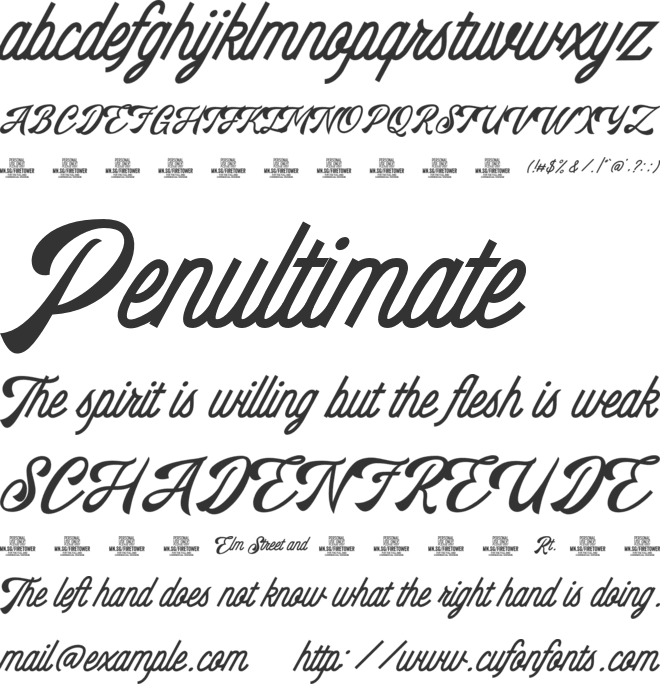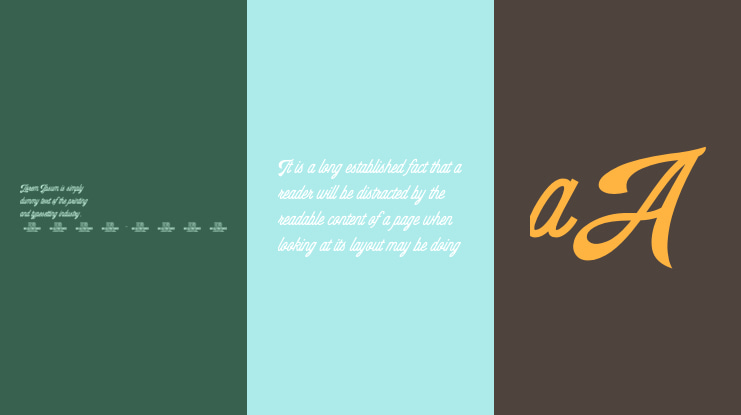
Firetower PERSONAL USE Font
Mans Greback
NOTE: This font is for PERSONAL USE ONLY!To purchase a commercial license, visit:https://www.mansgreback.com/product/firetowerFiretower is a script font with a strong, flowing hand and a steady rhythm. The uppercase are decorative and the lowercase letters are drawn with monolined strokes, giving the font a warm and rustic presence. For questions, please visit https://mansgreback.com/faq